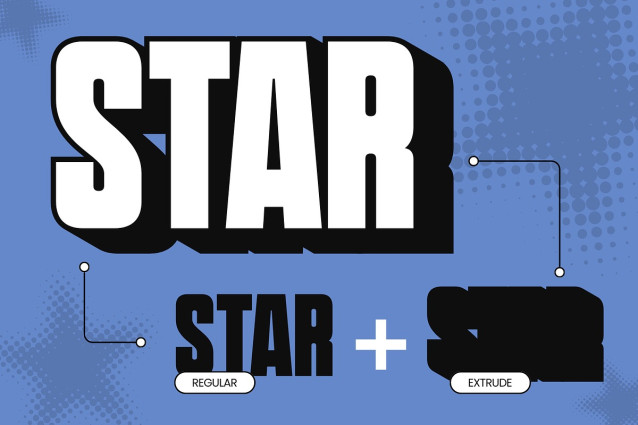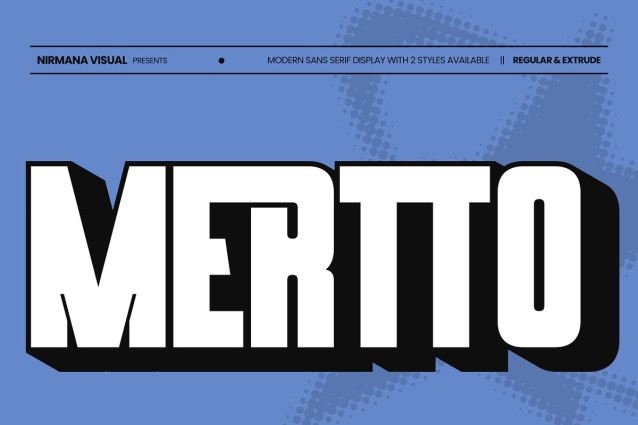
Mertto Font
Mertto Font is a bold contemporary typeface crafted with powerful extrude details that add depth, dimension, and striking visual impact. Designed to stand out, it delivers a confident and dynamic presence for branding, posters, logos, advertising campaigns, mobile websites, labels, and product packaging. Its clean modern structure combined with 3D-style extrusion creates a strong, professional look that captures attention instantly. Mertto Modern is perfect for brands that want to appear innovative, stylish, and unforgettable.